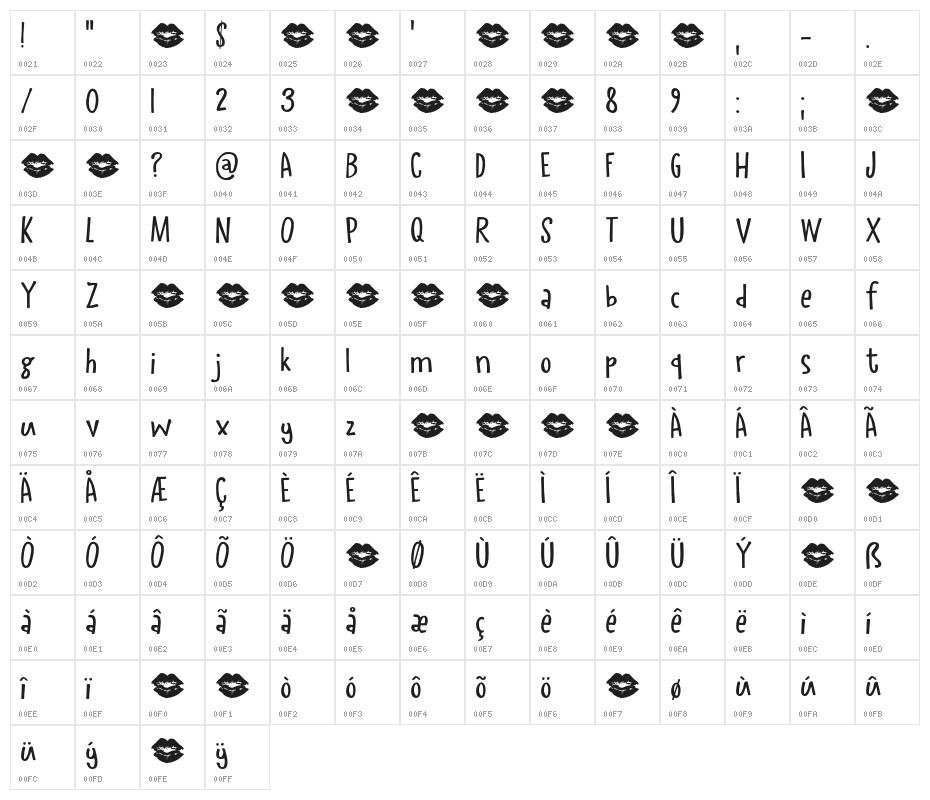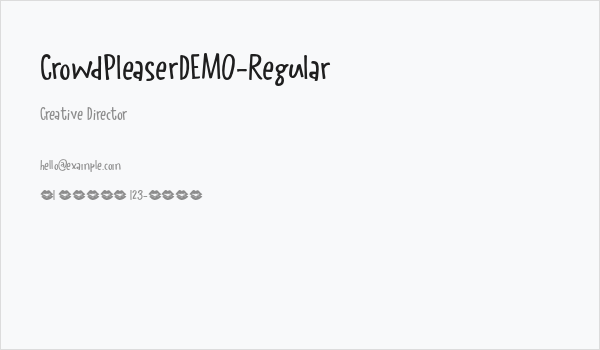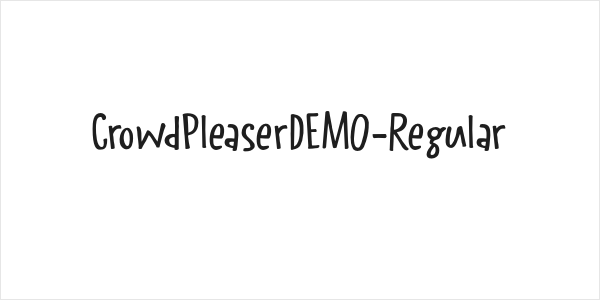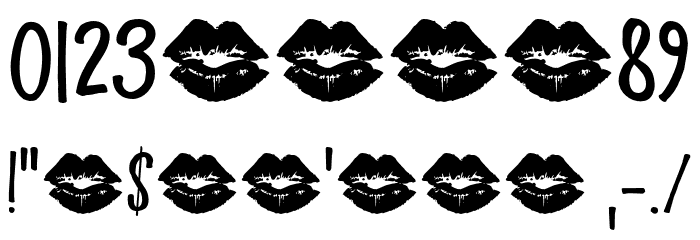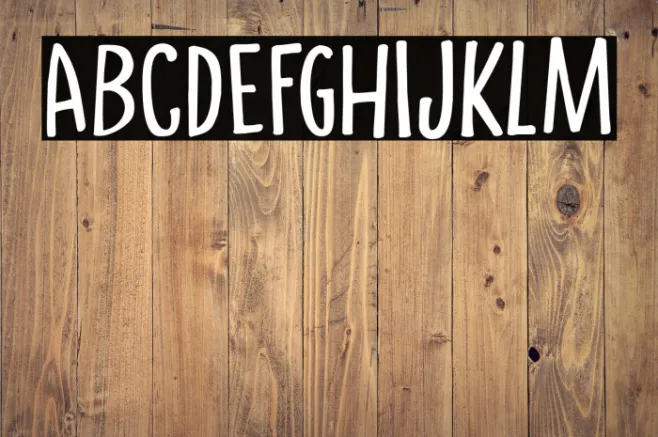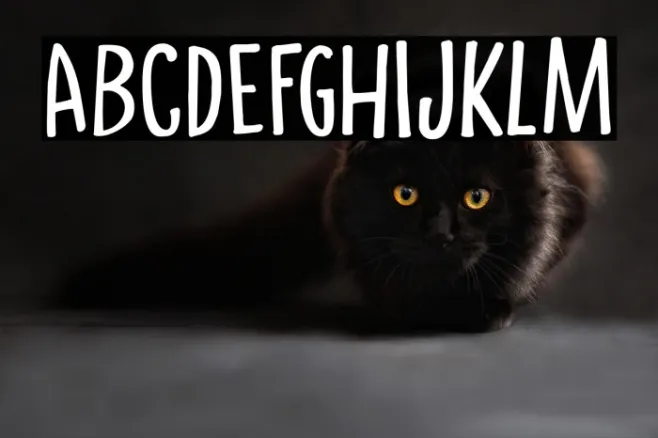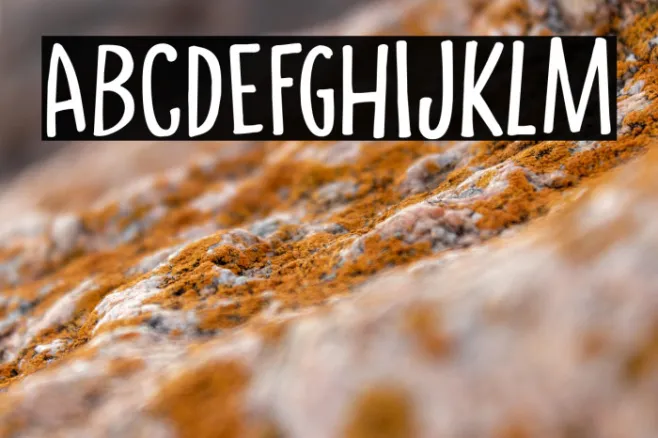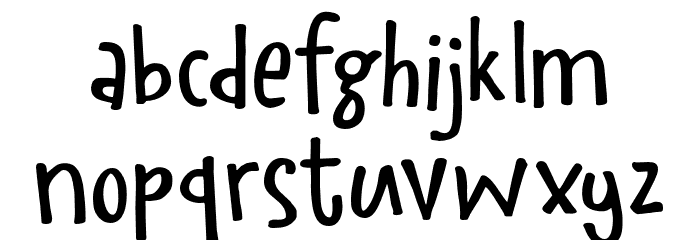
CrowdPleaserDEMO-Regular Font
CrowdPleaserDEMO-Regular Description
This playful and whimsical font features a handwritten style with a casual and friendly appearance. The letters are slightly irregular, adding a touch of personality and charm. The uppercase and lowercase characters maintain a consistent flow, while the numbers and special characters complement the overall design. The strokes are moderately thick, providing good readability while retaining a fun and informal vibe. This font is ideal for projects that require a lighthearted and approachable feel, such as children's books, greeting cards, or playful branding.
| Use Case | Headlines, Logos, Informal text |
| Proposed Projects | Children's books, greeting cards, playful branding, casual invitations. |